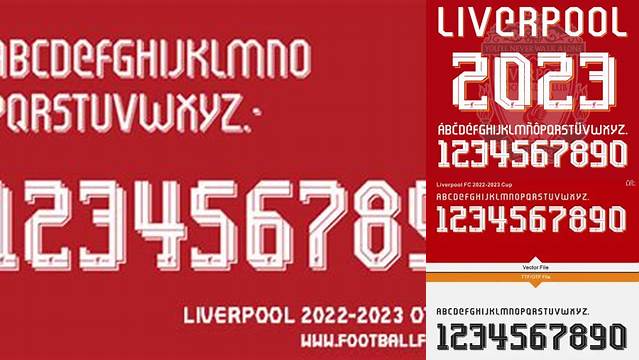
Are you a die-hard Liverpool fan looking to infuse your digital creations with the iconic spirit of Anfield? Do you want to capture the electrifying energy of the Kop and the passion of the Reds in your designs? Well, you've come to the right place, guys! In this comprehensive guide, we'll delve into the world of the Liverpool font 23/24, providing you with everything you need to know to download and use this legendary typeface for free. We'll explore its history, its unique characteristics, and how you can use it to create stunning visuals that showcase your unwavering support for the mighty Reds.
Why the Liverpool Font Matters: More Than Just Letters
The font used on Liverpool's jerseys and official merchandise isn't just a typeface; it's a symbol of the club's rich history, its unwavering spirit, and its global fanbase. It's the font that adorns the names of legendary players, the numbers on their iconic kits, and the words that proclaim the club's triumphs. When you use the Liverpool font, you're not just choosing a typeface; you're connecting with a legacy.
Think about it – every time you see that distinctive font, you're instantly transported to the hallowed grounds of Anfield, you can almost hear the roar of the crowd, and feel the electric atmosphere of a matchday. That's the power of a well-designed font, and the Liverpool font is a prime example of how typography can transcend mere aesthetics and become a symbol of identity and belonging.
The Evolution of the Liverpool Font
Like the club itself, the Liverpool font has evolved over the years, reflecting the changing times and the club's continued growth. From the classic, traditional fonts of the past to the more modern and dynamic typefaces of recent seasons, the Liverpool font has always been a reflection of the club's identity. The 23/24 season's font is no exception, boasting a unique design that captures the essence of the modern Liverpool team – dynamic, energetic, and always striving for excellence.
The font used in the 2023/2024 season maintains a clean and modern aesthetic while incorporating subtle details that pay homage to the club's heritage. It's a font that's both instantly recognizable and undeniably stylish, making it a favorite among fans and designers alike. The specific nuances of the design, such as the slight curves and the unique angles, contribute to its overall character and make it stand out from other sports fonts.
What Makes the 23/24 Liverpool Font Special?
The Liverpool font 23/24 possesses a unique blend of characteristics that set it apart from other typefaces. Its clean lines and modern aesthetic give it a contemporary feel, while subtle details, such as the slightly curved terminals and the distinctive shape of certain letters, add a touch of character and personality. This makes it a versatile font that can be used in a wide range of applications, from social media graphics to print materials.
One of the key features of the 23/24 Liverpool font is its legibility. The letters are well-spaced and clearly defined, making it easy to read even at small sizes. This is crucial for applications such as jersey printing, where the font needs to be both stylish and functional. Furthermore, the font's strong visual presence ensures that it stands out and makes a statement, whether it's used on a website, a poster, or a social media post.